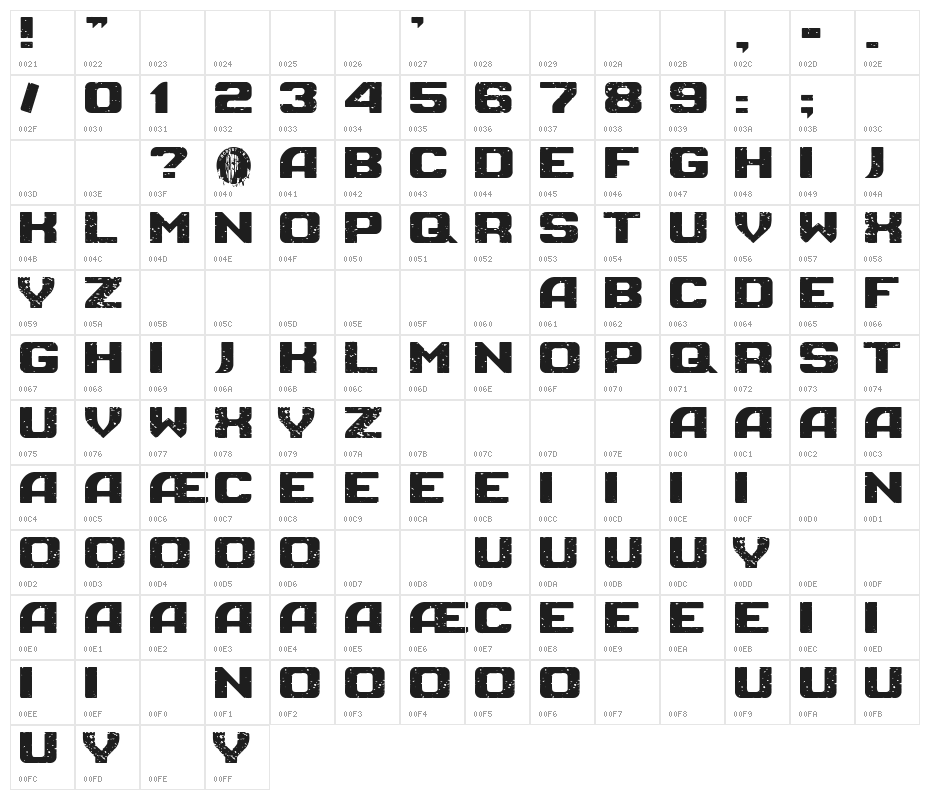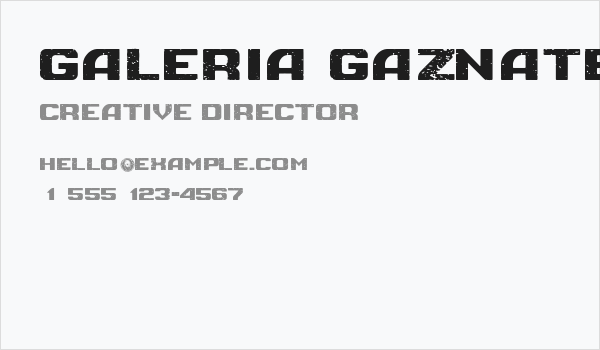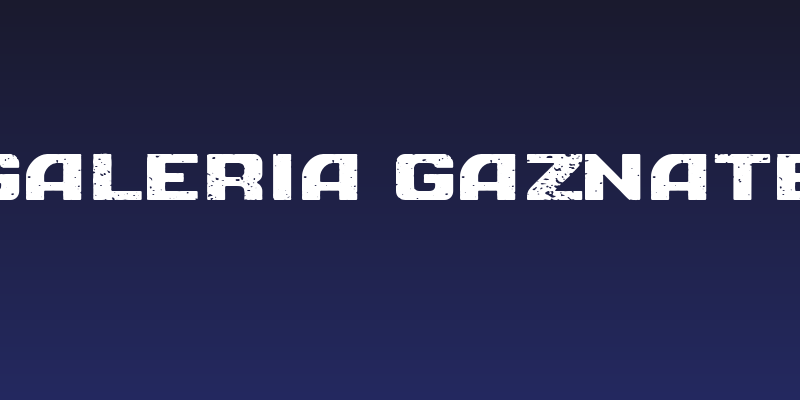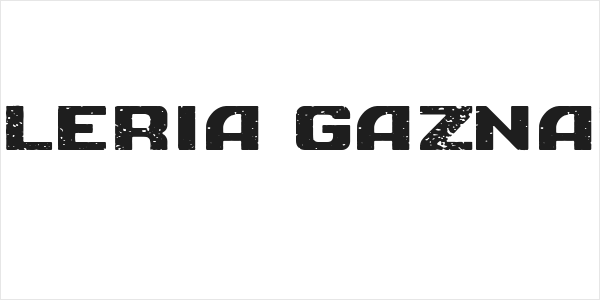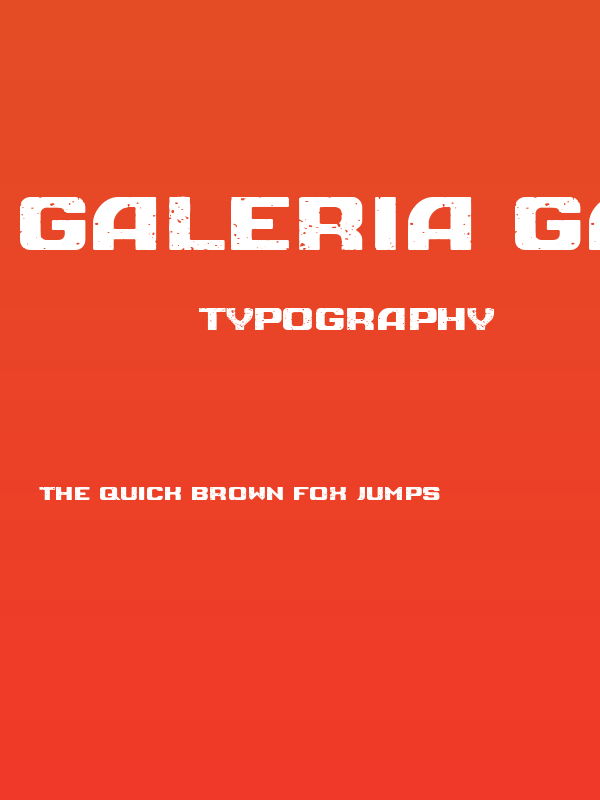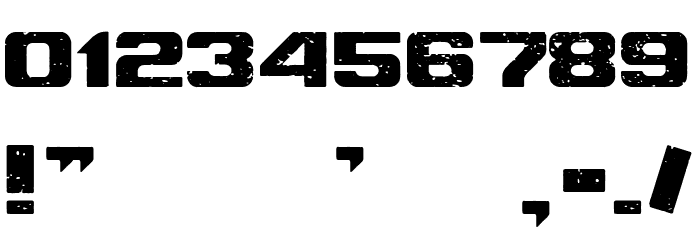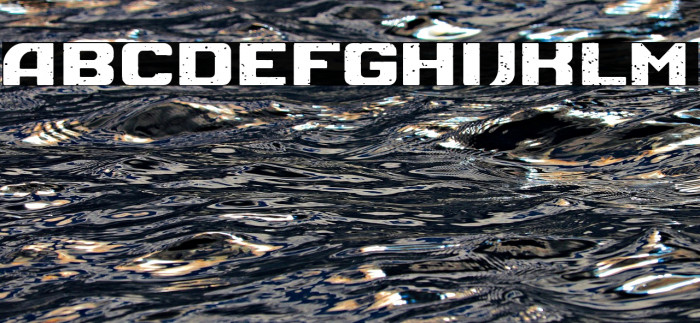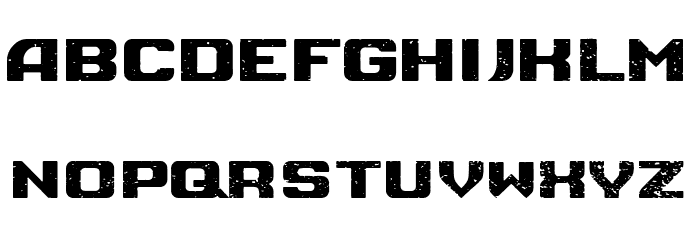
Galeria Gaznate Font
| Style général | Vintage, Industrial |
| Cas d'utilisation | Logos, Posters, Branding |
| Projets proposés | Ideal for projects requiring a vintage or industrial look, such as posters, logos, branding for rugged products, or themed event materials. |